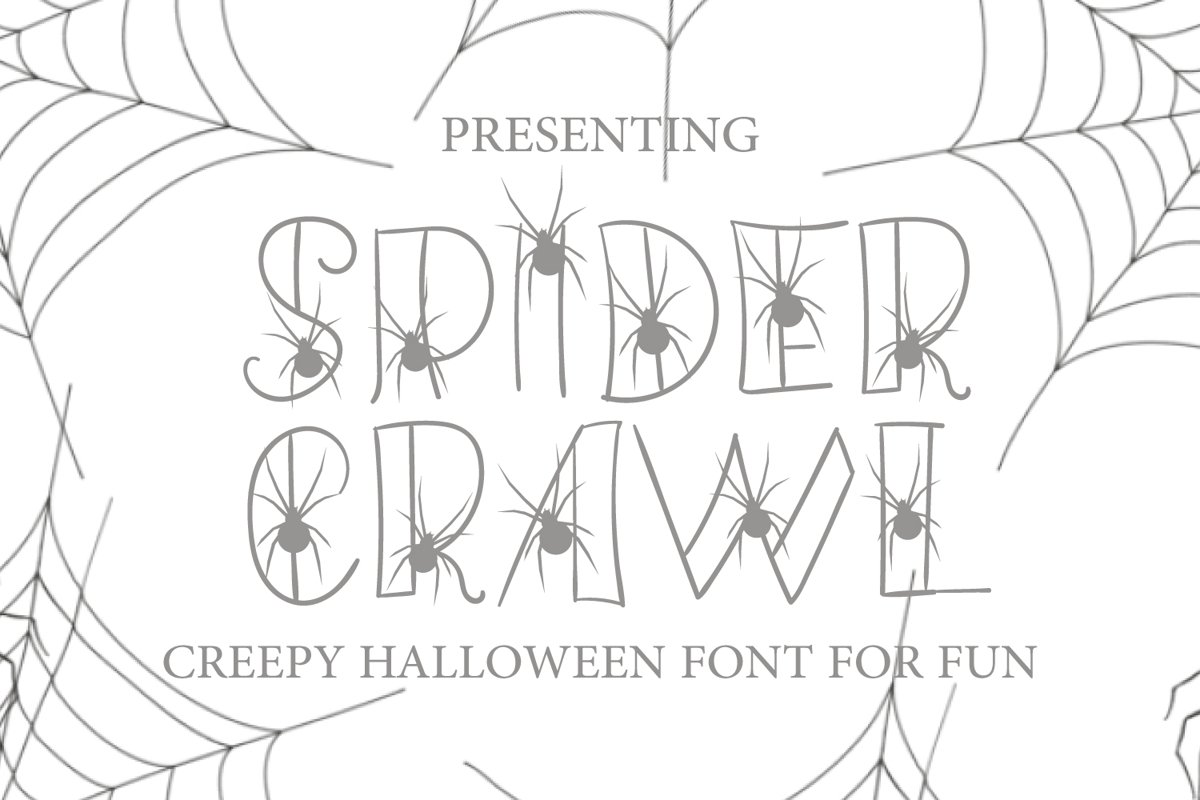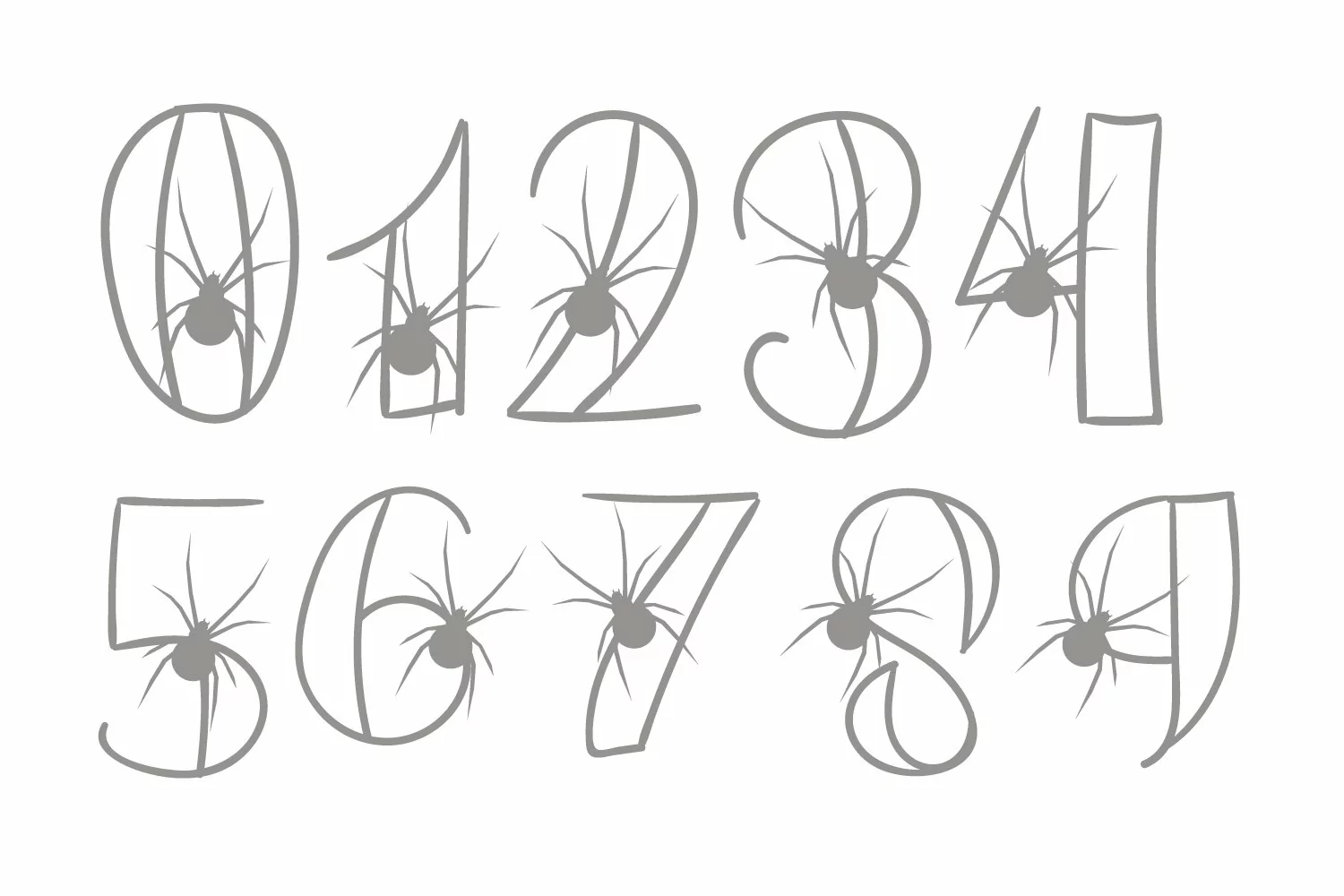
Presenting Cute font for you. A Hand Drawn Spider Font - Spider Crawl for Fun Projects can be used in tons of projects specially for child and new born projects. You can use it for craft purpose and this will looks great on shirts, printing material and other stuff.
2- UPPER Case only Letters A to Z and 0 to 9
3- Super Cute and Creative